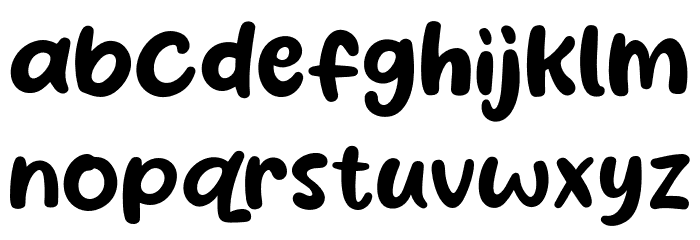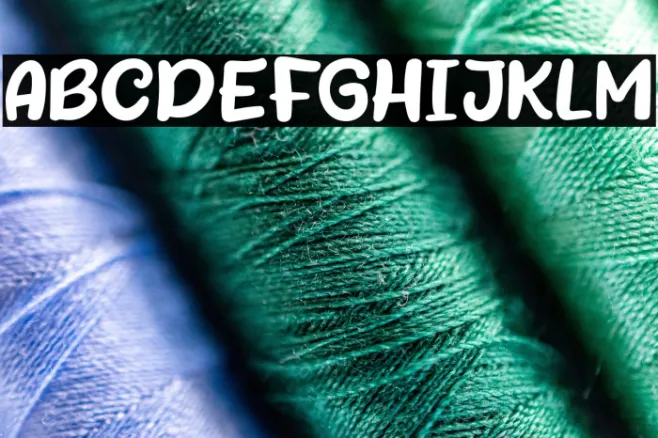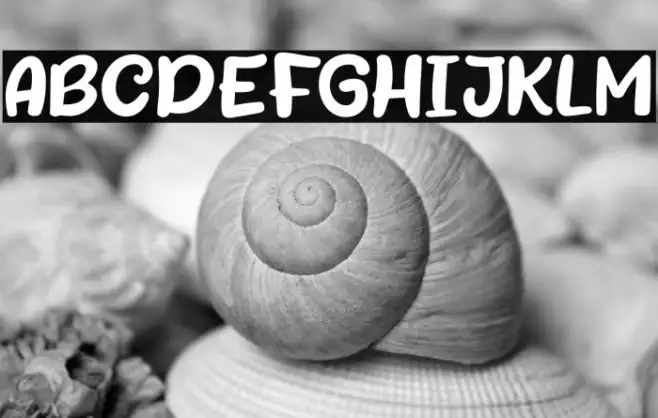
Basque Smile Font
This playful and bold font features rounded, bubbly characters that convey a sense of fun and whimsy. The letters are thick and uniform, with a consistent stroke width that gives the font a cohesive look. The uppercase and lowercase letters maintain a friendly and approachable style, making it suitable for informal and creative projects. The numbers and special characters are equally rounded and maintain the playful aesthetic. This font is perfect for projects that require a lighthearted and cheerful touch, such as children's books, party invitations, or playful branding.
A playful, rounded font with bold, uniform strokes and a whimsical style.
- Font: Basque Smile
- Proposed Projects: Ideal for children's books, party invitations, playful branding, and creative projects.
- Overall Style: Playful, Whimsical
- Use Case: Headlines, Logos, Creative projects